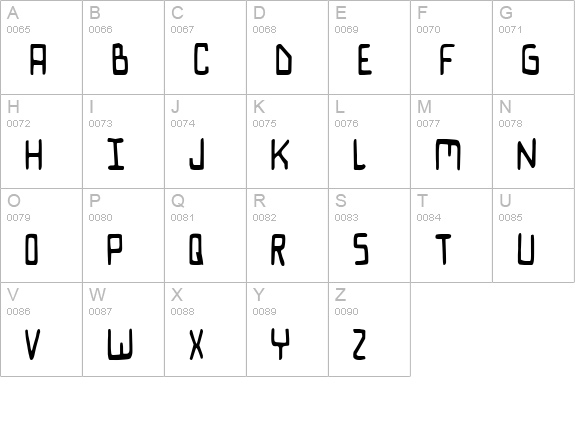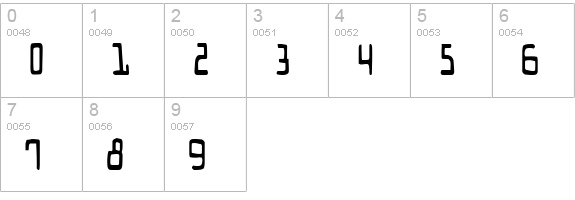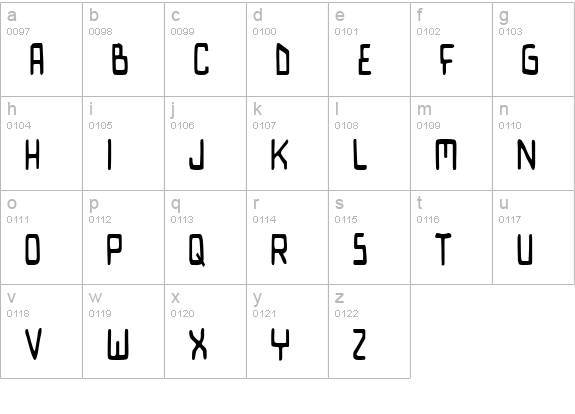
Bionic Comic Condensed is a distinctive, condensed-width variant in the Bionic typeface family \xE2\x80\x94 well suited to design and typography projects.
Bionic Comic Condensed font is a sleek and modern typeface that combines the futuristic look of bionic elements with the playful vibe of comic book lettering. Its condensed design makes it perfect for adding a touch of edginess to your projects, whether it's for posters, logos, or social media graphics. This versatile font is sure to make your text stand out and grab attention. Best of all, Bionic Comic Condensed font is available for free download at FontsMarket.com. So, you can easily enhance your designs without breaking the bank. Don't miss out on this opportunity to add a unique and dynamic touch to your creative projects with this captivating font. Download it now and let your creativity shine!